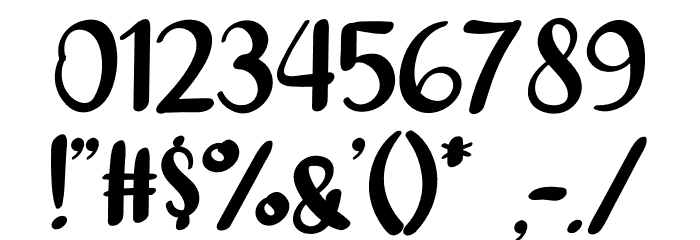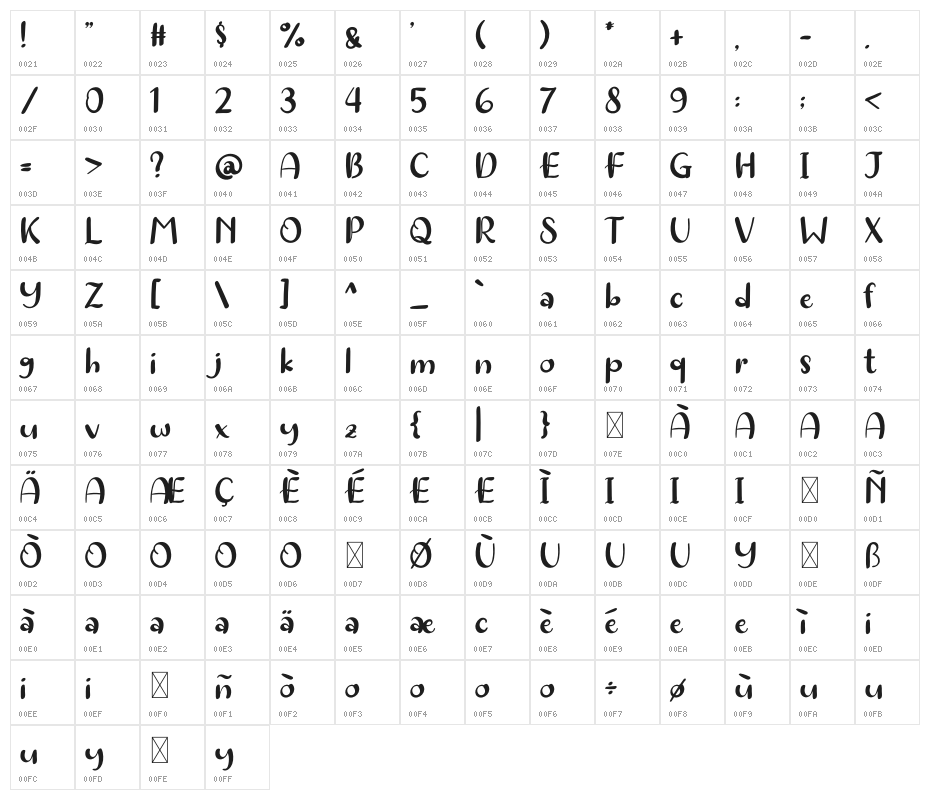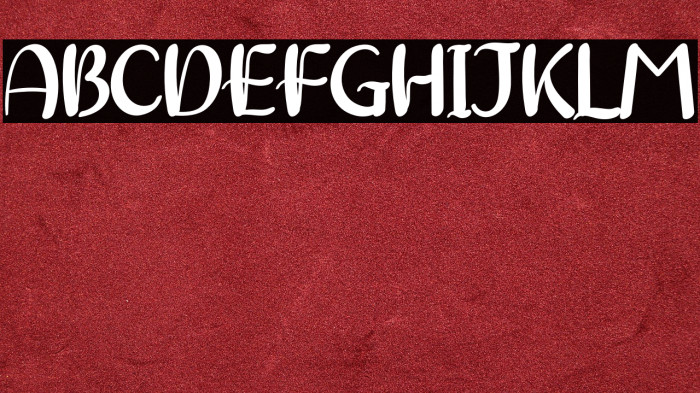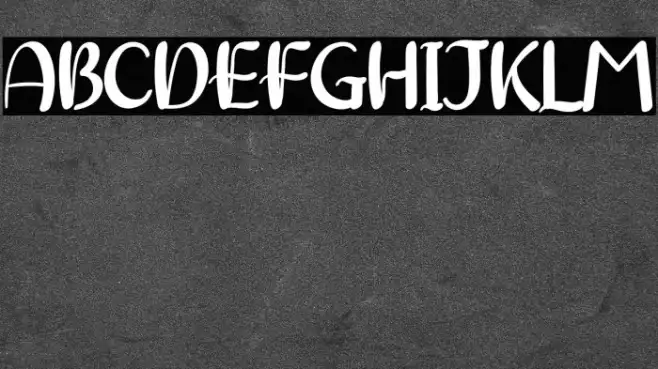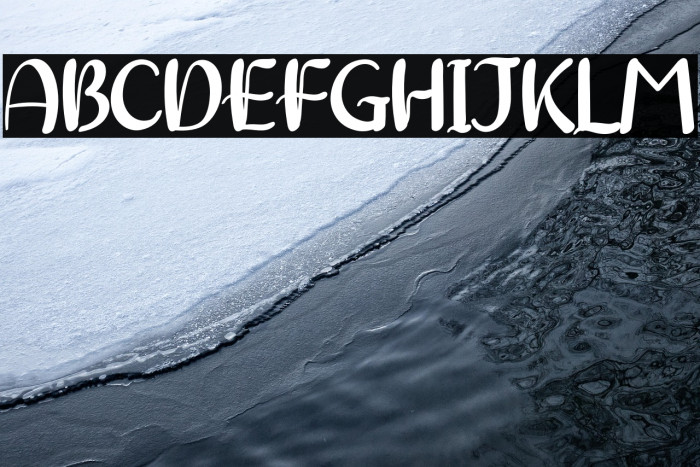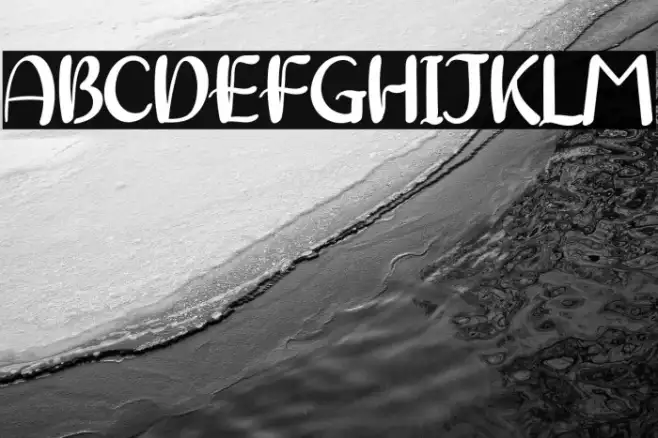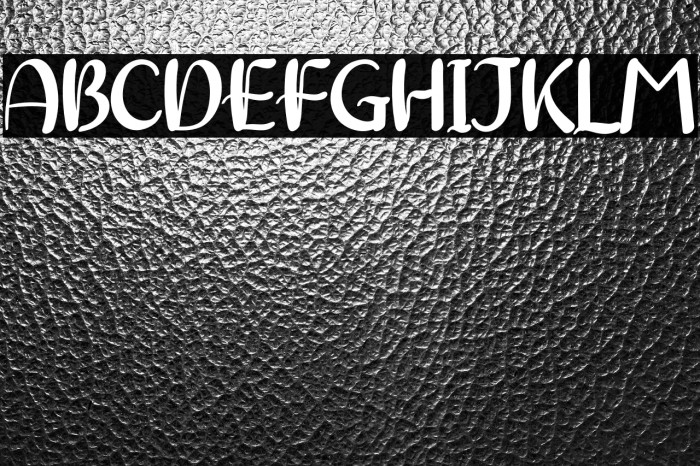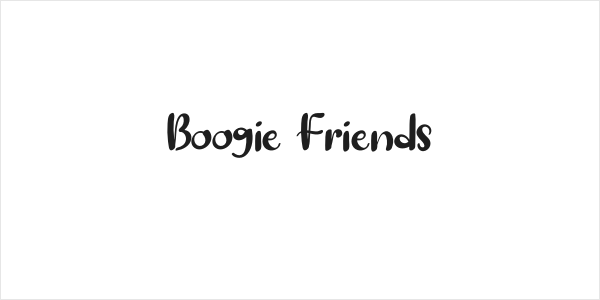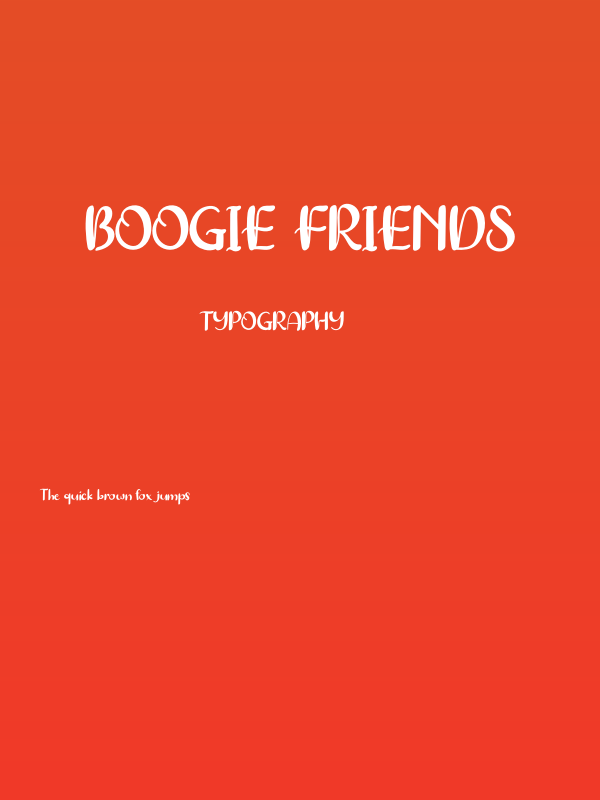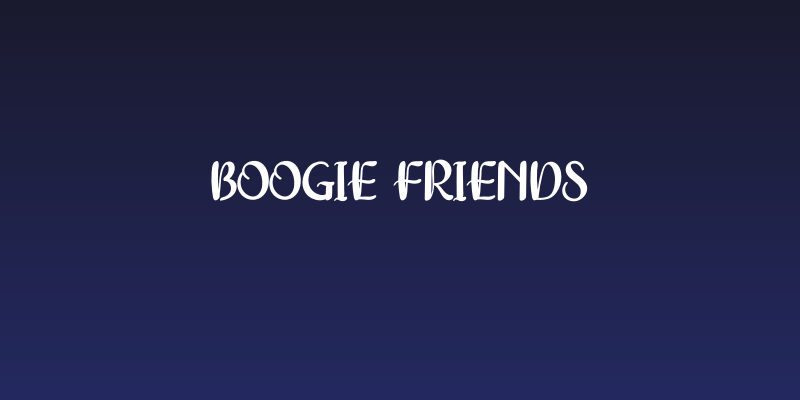
Boogie Friends Font
Boogie Friends Description
This playful and energetic font features a bold and rounded style with a whimsical flair. The letters are characterized by their smooth curves and slightly irregular shapes, giving them a hand-drawn appearance. The uppercase letters are tall and slightly narrow, while the lowercase letters maintain a consistent roundness. The numerals are equally playful, with a consistent weight and style that matches the letters. Special characters are creatively designed, adding to the font's overall charm. This font exudes a sense of fun and creativity, making it ideal for projects that require a lively and informal touch.